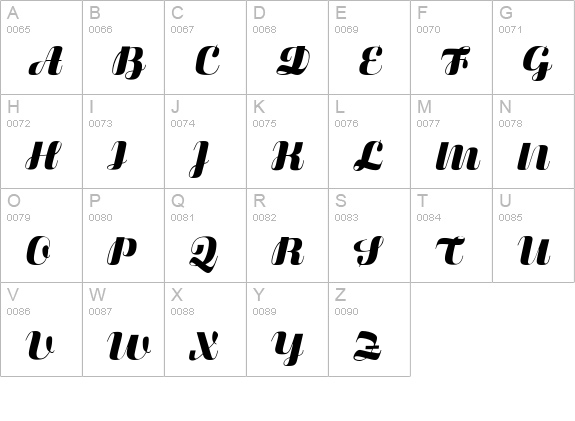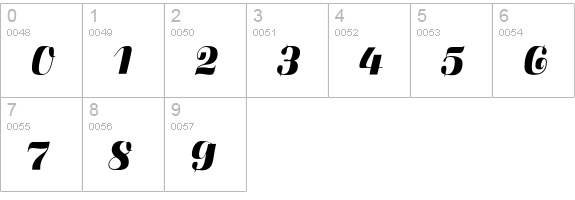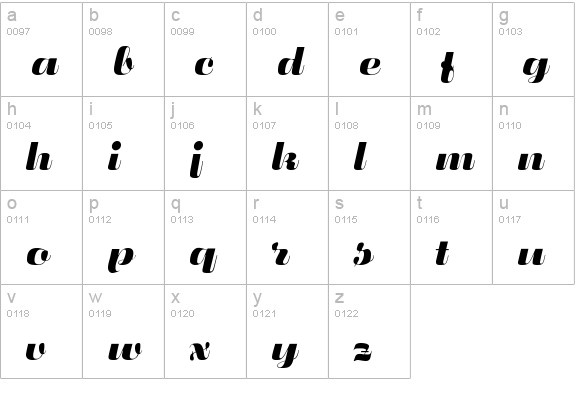
CgFluidum-Bold Font Details
CgFluidum-Bold is a strong, high-contrast variant in the CgFluidum typeface family \xE2\x80\x94 well suited to headlines, attention-grabbing titles, and strong calls-to-action.
CgFluidum-Bold is a striking and modern font that makes a bold statement in any design project. With its sleek lines and strong presence, this font is perfect for headlines, logos, and other attention-grabbing elements. The bold weight adds a touch of sophistication and impact to any text. What makes CgFluidum-Bold even better is that it is completely free to download at FontsMarket.com. This means you can easily add this stylish font to your collection without any cost. Don't miss out on the opportunity to enhance your designs with this versatile and eye-catching typeface. Download CgFluidum-Bold today and take your projects to the next level!